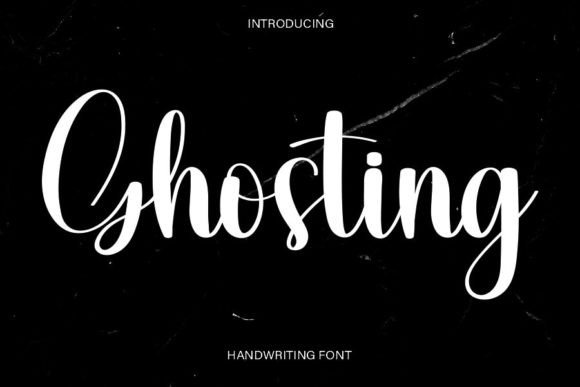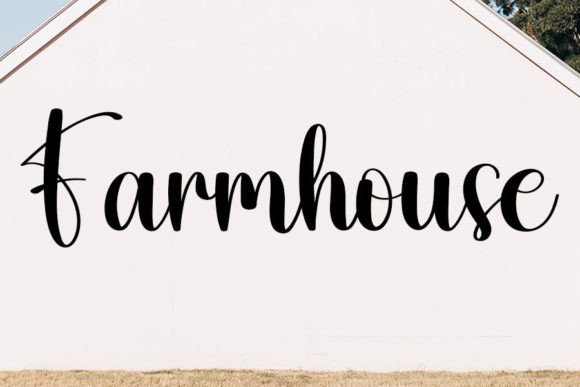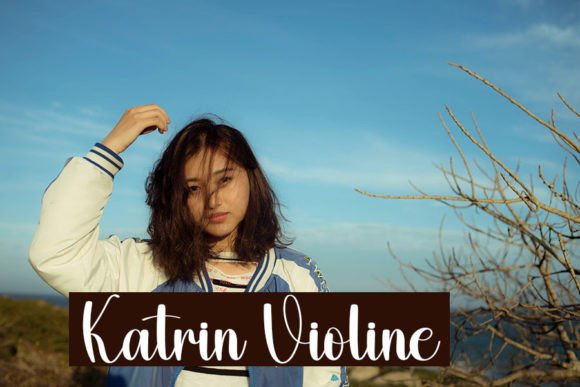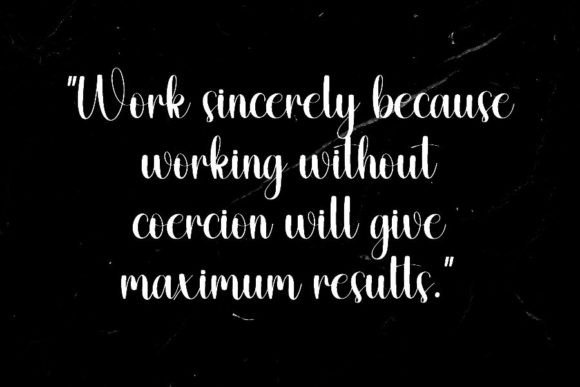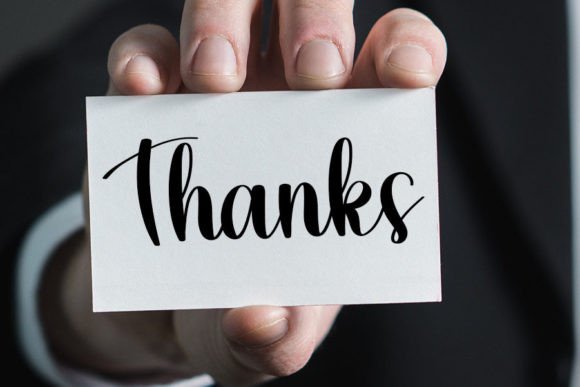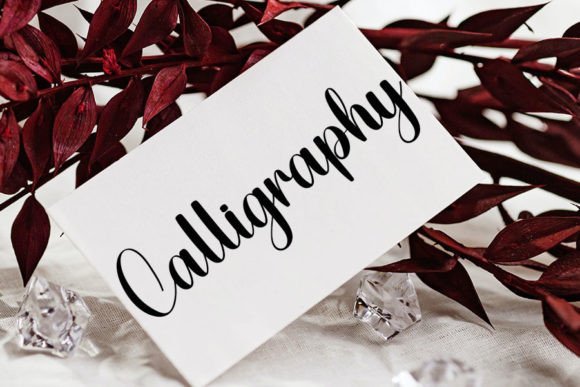
Ghosting Font
What Is Ghosting Font?
Ghosting Font is a clean and elegant handwritten script designed to bring a sense of simplicity and sophistication to your creative projects. Each letter features smooth, balanced strokes that feel fresh, natural, and timeless. This combination makes Ghosting Font an ideal choice for designers who want their work to look polished, modern, and approachable.
The font blends minimalist beauty with a handcrafted feel, creating a style that feels effortless and refined.
Ghosting Font is highly versatile and adapts beautifully to a wide range of design applications. For example, it looks wonderful on greeting cards for birthdays, weddings, and other special occasions. The smooth handwritten style gives your messages a personal, heartfelt touch that recipients will appreciate.
It also works perfectly in headlines, posters, and banners. Whether you’re designing promotional materials, event signage, or website headers, Ghosting Font adds clarity and elegance without feeling overwhelming.
If you create logos, Ghosting Font helps your brand appear professional and inviting. Boutiques, creative studios, and artisan brands often choose handwritten fonts to express authenticity and warmth. Ghosting’s clean lines and understated charm make it an excellent fit for businesses that value simplicity and trust.
This font is also ideal for social media graphics. Quotes, announcements, and product promotions feel more engaging and cohesive when you use a script that’s clear, friendly, and modern.
Additionally, Ghosting Font works beautifully for product packaging and labels. From handmade candles to high-end skincare, this typeface adds a refined, high-quality look that resonates with customers.
Why Should You Choose Ghosting Font?
One of the top reasons to choose Ghosting Font is its excellent readability. Even with its elegant handwritten style, every letter stays crisp and easy to read at any size. Whether you design small labels or large headlines, your text will look clean and professional.
Another advantage is how well it pairs with other typefaces. You can combine Ghosting Font with minimalist serif or sans-serif fonts to create balanced layouts. This pairing helps you maintain clarity while adding character and charm.
Designers also appreciate that Ghosting Font saves time without sacrificing quality. Every glyph is carefully crafted to look polished out of the box, so you can produce beautiful designs faster.
Ghosting Font brings authenticity, warmth, and elegance to your work. Its clean, flowing letters help you create designs that feel approachable and genuine. This connection is especially valuable when you’re designing materials meant to inspire trust or celebrate special moments.
Its minimalist aesthetic adds clarity and sophistication to any layout. Even simple designs feel refined and complete when you use Ghosting Font.
Choosing a high-quality handwritten script shows you value detail and great design. Clients and customers will notice your care and effort, which builds trust and elevates your brand.
Ghosting Font is more than a clean handwritten script—it’s a versatile design tool that helps you share ideas with elegance and ease. From greeting cards to logos and product packaging, this font adapts to many uses and always makes a positive impression.